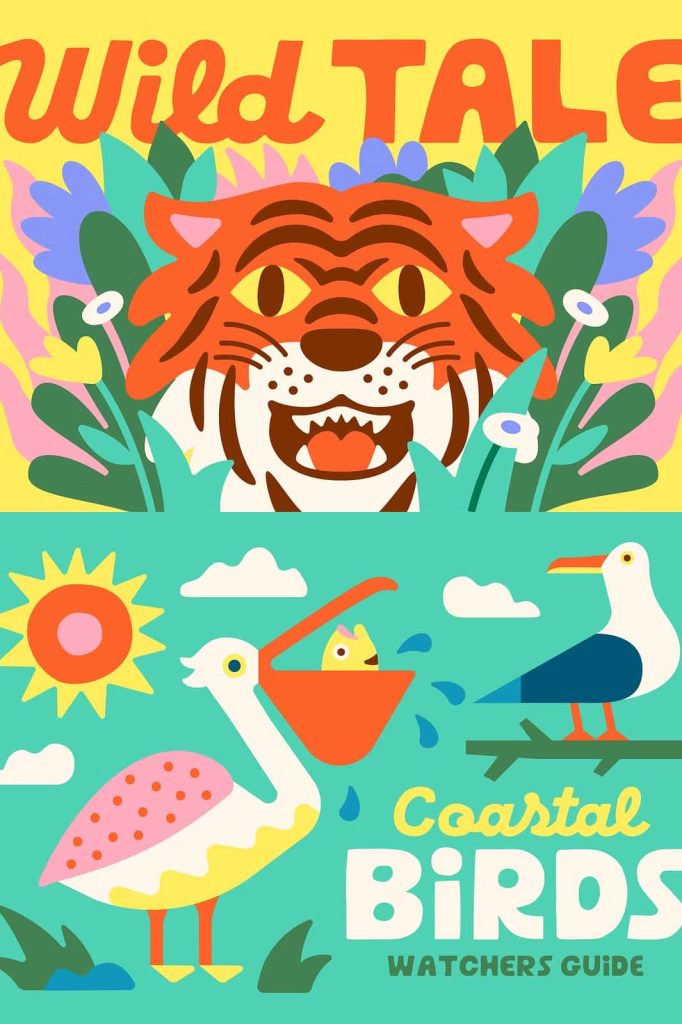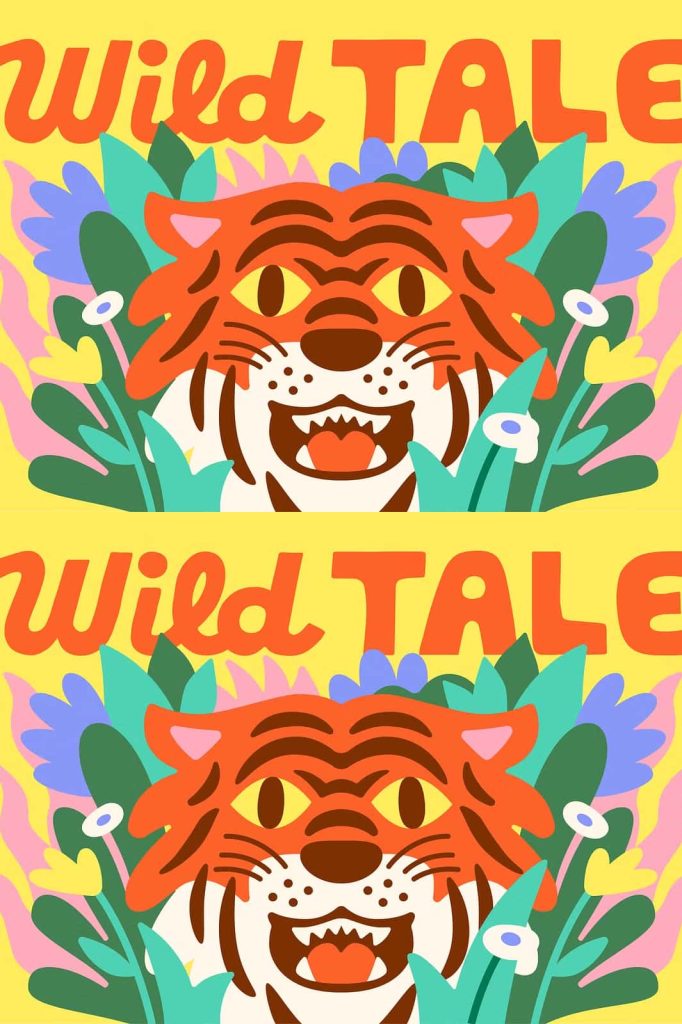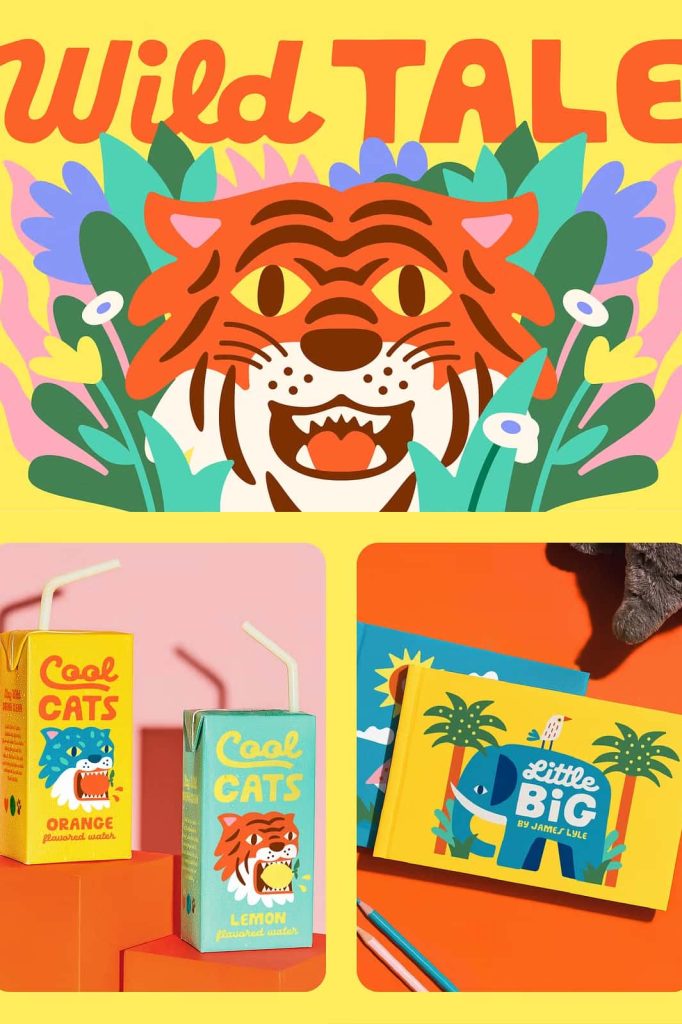
Wild Tale Display Fonts – Hand-Drawn Font Duo Full of Personality
Wild Tale Display Fonts is a charming hand-drawn font duo designed to bring creativity, warmth, and personality into every design project. Featuring a bold all-caps sans serif and a loose, playful script, this versatile font collection gives designers the freedom to create eye-catching typography with an authentic handcrafted feel. Inspired by casual doodles, handwritten notes, and artistic sketches, Wild Tale captures the joy of creativity while maintaining a polished appearance suitable for professional and personal projects alike.
Whether you are designing memorable branding, colorful posters, attractive product packaging, or playful social media graphics, Wild Tale Display Fonts provide the perfect balance between bold structure and expressive handwriting. The combination of two complementary styles allows you to create dynamic typography with natural contrast, making every composition feel lively, unique, and full of character.
Unlike ordinary display fonts, Wild Tale embraces imperfections that make lettering feel genuine and approachable. Every character has been carefully crafted to preserve the spontaneous energy of hand-drawn typography while ensuring excellent readability across a wide variety of design applications.
A Unique Hand-Drawn Font Duo
Wild Tale includes two carefully designed font styles that work beautifully together or independently. The first style is a chunky all-caps sans serif that delivers bold visual impact with clean, confident shapes. The second style is a relaxed handwritten script that introduces movement, personality, and warmth into your typography.
When combined, these two styles create beautiful visual contrast that instantly captures attention. Designers can highlight important words with the bold sans while using the playful script to add emphasis, creativity, and artistic expression.
This flexibility makes Wild Tale suitable for countless design styles ranging from modern branding to vintage-inspired artwork and playful promotional materials.
Inspired by Creative Doodles and Handmade Lettering
The inspiration behind Wild Tale comes from simple sketches, notebook doodles, handwritten signs, and everyday creative moments. Instead of striving for perfect symmetry, the font celebrates the beauty of handmade lettering through natural curves, organic spacing, and expressive character shapes.
This handcrafted appearance gives every project a more personal and authentic feeling. It allows businesses and designers to communicate creativity, friendliness, and originality without sacrificing professionalism.
The result is typography that feels approachable, memorable, and enjoyable across both print and digital media.
Key Features
- Hand-drawn font duo with two complementary styles.
- Bold all-caps sans serif for impactful headlines.
- Loose and playful handwritten script.
- Authentic handcrafted appearance.
- Excellent readability for display typography.
- Perfect for branding, posters, and packaging.
- Easy to combine both styles for creative layouts.
- Suitable for print and digital applications.
Create Memorable Branding
Typography plays an important role in creating strong brand recognition, and Wild Tale Display Fonts help businesses build visual identities that feel creative, approachable, and memorable. The bold sans serif communicates confidence and clarity, while the handwritten script adds warmth and personality that customers instantly connect with.
Wild Tale is ideal for small businesses, artisan brands, cafés, restaurants, clothing labels, children’s products, creative agencies, handmade shops, lifestyle brands, and independent entrepreneurs looking to stand out with authentic typography.
Whether used in logos, product labels, websites, or marketing materials, Wild Tale creates branding that feels fresh, distinctive, and full of life.
Perfect for Posters and Promotional Graphics
The bold display style of Wild Tale makes it especially effective for posters, flyers, banners, advertisements, and promotional campaigns. Large headlines remain highly readable while the playful script introduces visual movement that keeps layouts engaging.
The combination of bold and handwritten typography allows designers to establish clear visual hierarchy while maintaining a fun and artistic appearance. This versatility makes Wild Tale an excellent choice for events, concerts, seasonal promotions, and creative campaigns.
Excellent for Packaging and Product Labels
Wild Tale brings handcrafted charm to product packaging and labels. Whether you are creating packaging for handmade products, candles, cosmetics, coffee, baked goods, clothing, or artisan gifts, the font adds authenticity and personality that help products stand out on retail shelves and online marketplaces.
The combination of structured and handwritten typography creates packaging that feels carefully designed while remaining warm and inviting.
Wild Tale Display Fonts is a versatile hand-drawn font duo featuring a bold all-caps sans serif and a playful handwritten script that work beautifully together across countless creative applications. Designed for branding, posters, packaging, logos, social media graphics, merchandise, and artistic projects, Wild Tale combines handcrafted authenticity with modern versatility. Add Wild Tale Display Fonts to your design library and create expressive typography that communicates creativity, warmth, and personality in every project.